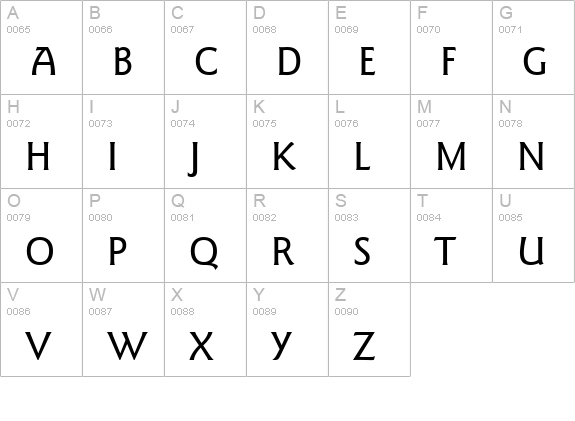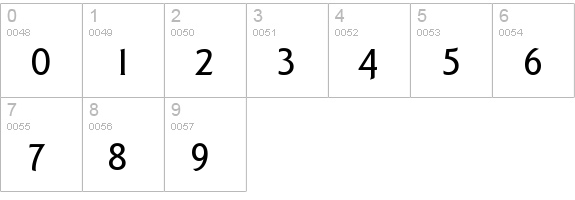
Goudy Sans Medium BT Font Details
Goudy Sans Medium BT is a balanced, medium-weight variant in the Goudy typeface family \xE2\x80\x94 well suited to sub-headlines, navigation, and balanced editorial work.
Goudy Sans Medium BT font is a versatile and elegant typeface that exudes sophistication and modernity. With its clean lines and balanced proportions, this font is perfect for a wide range of design projects, from branding to editorial layouts. The medium weight of Goudy Sans Medium BT strikes the perfect balance between legibility and impact, making it ideal for headlines and body text alike. What's more, Goudy Sans Medium BT is available for free download at FontsMarket.com. This means that you can easily access and use this high-quality font in your projects without any cost. Whether you're a designer looking to elevate your work or a business owner seeking a polished look for your branding, Goudy Sans Medium BT is a versatile and reliable choice that won't break the bank. Download it today and see how it can enhance your designs!